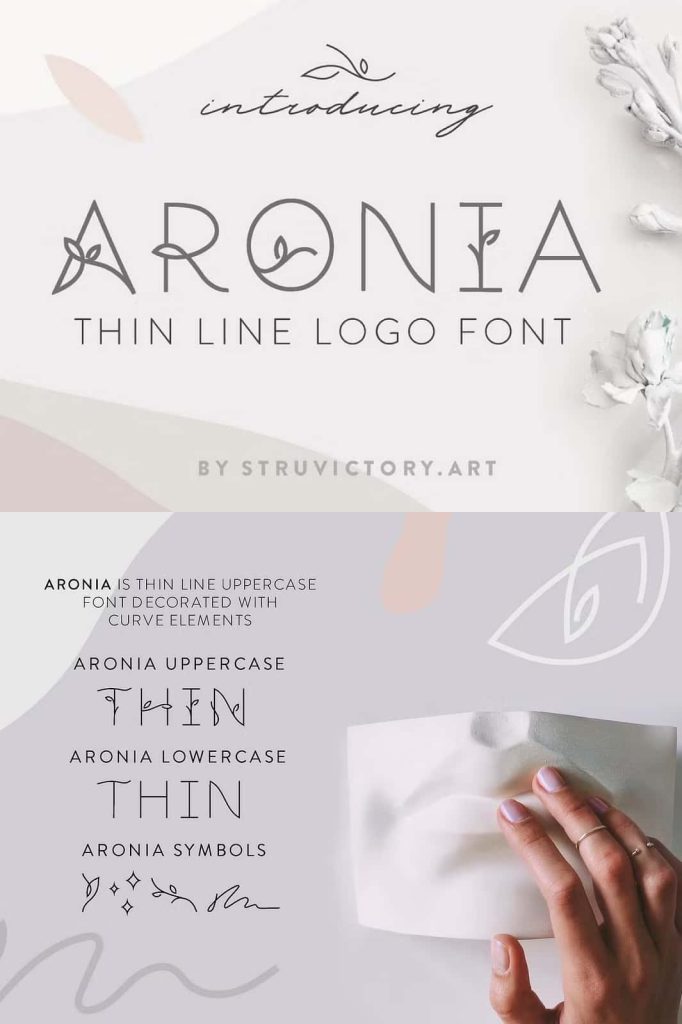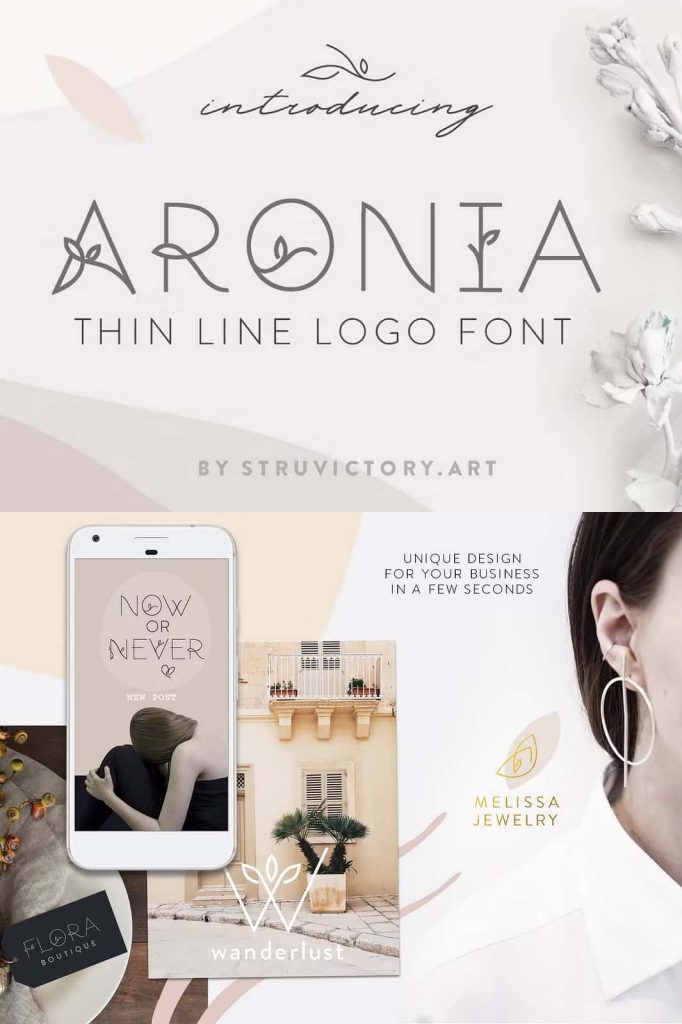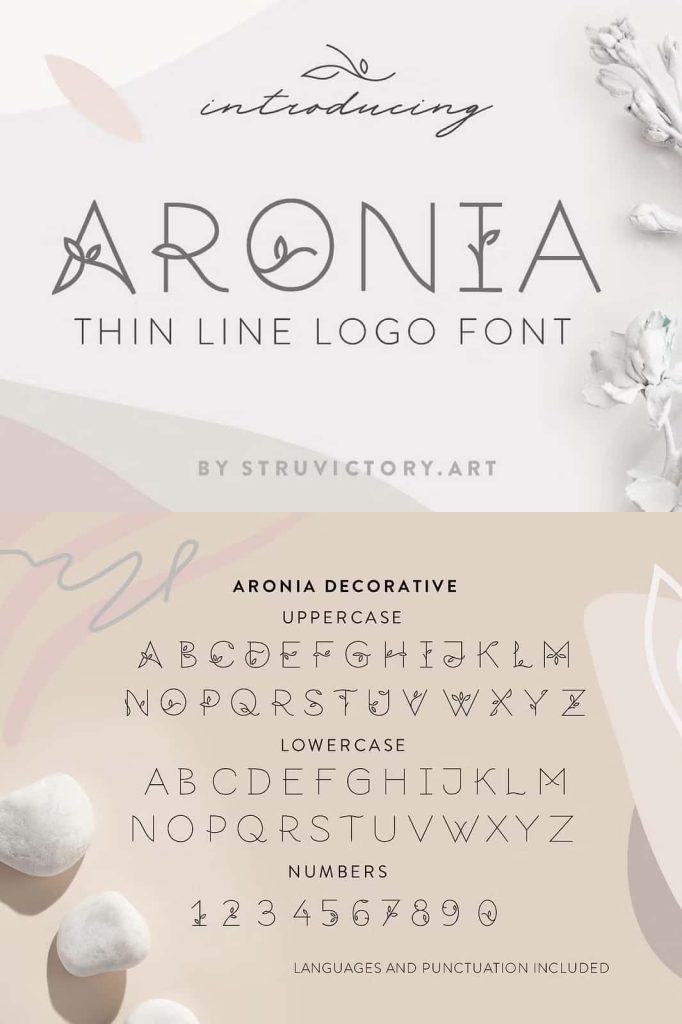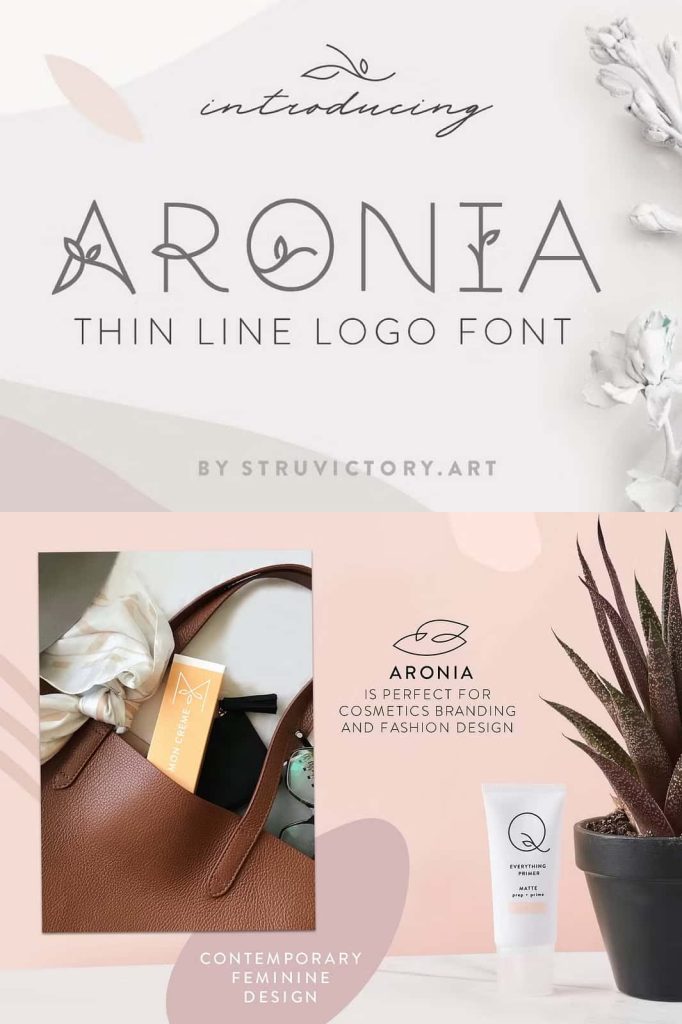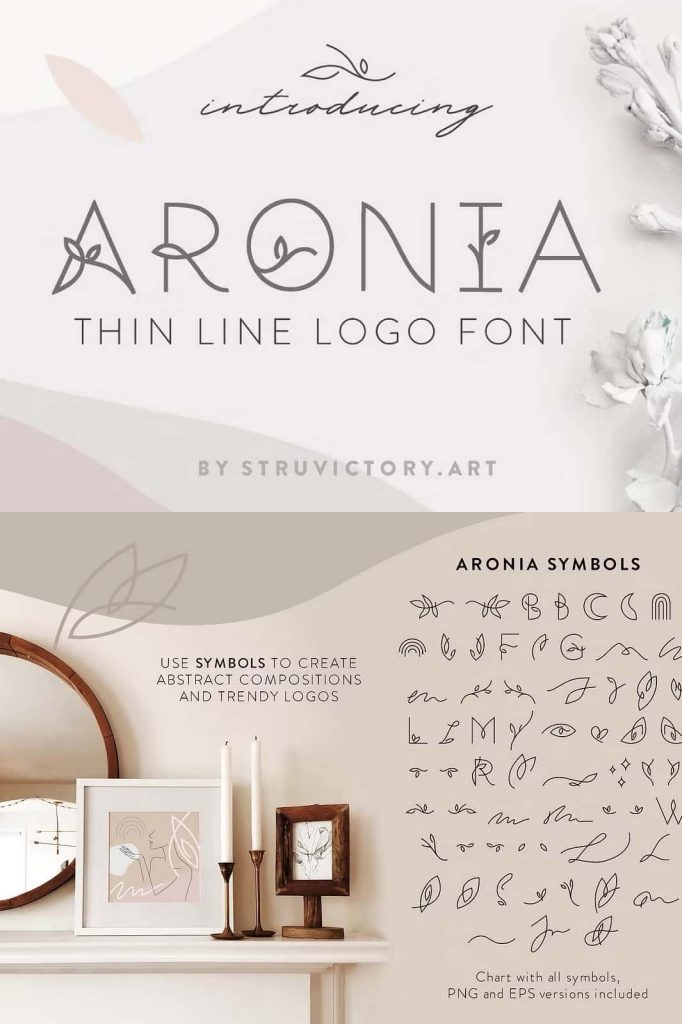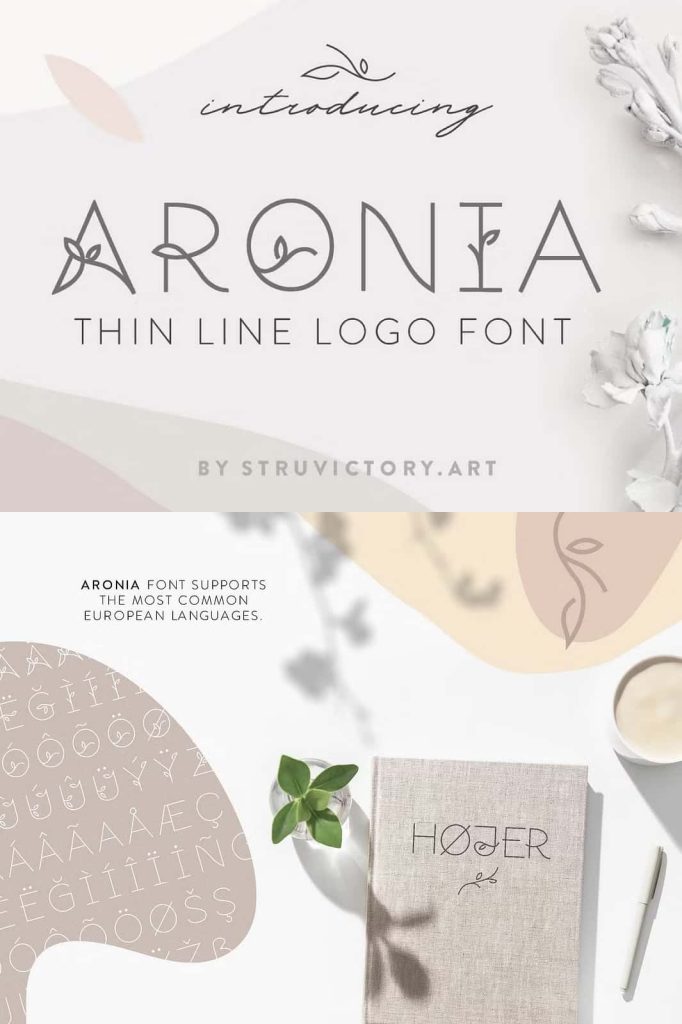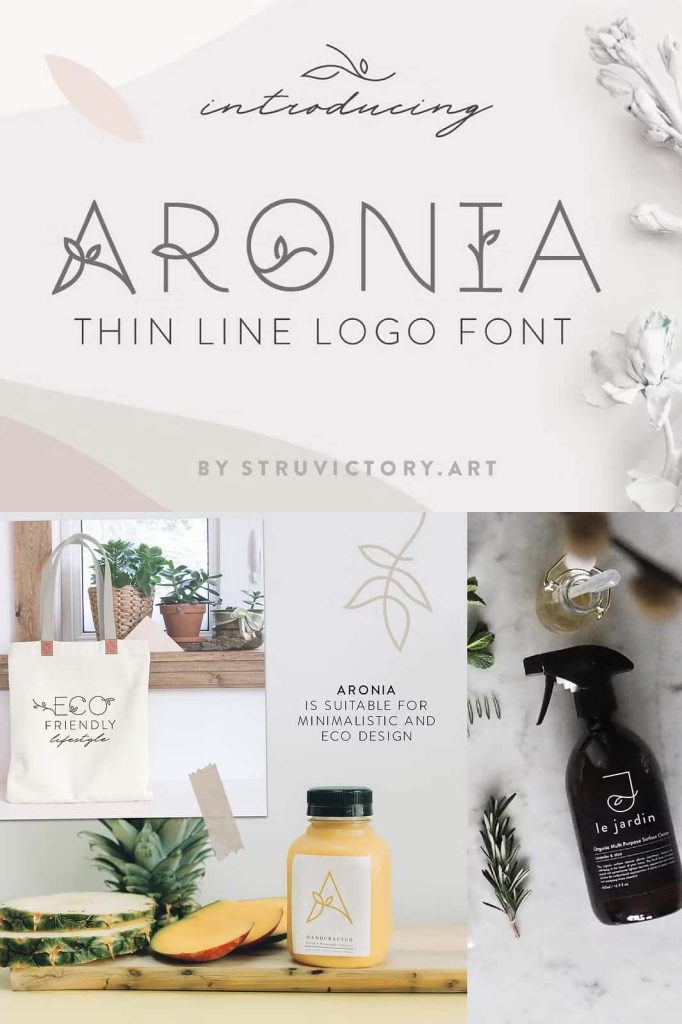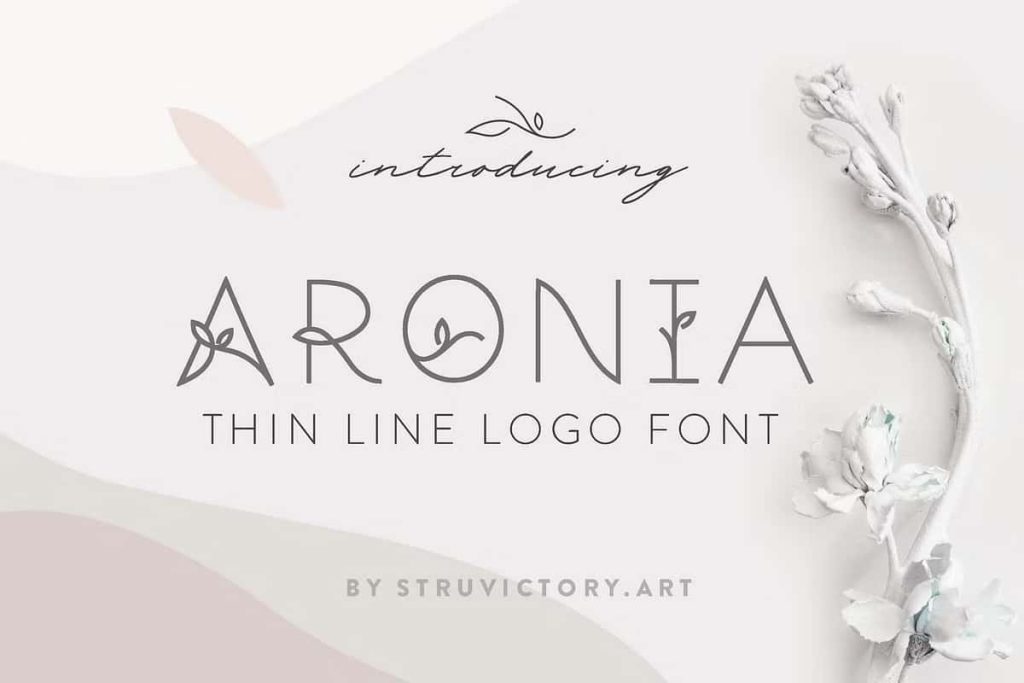
Aronia – Thin Line Logo FontleastedDecember 27, 2024Fonts Aronia is thin line uppercase font with floral motives. The typeface includes Regular and Symbol versions. Download